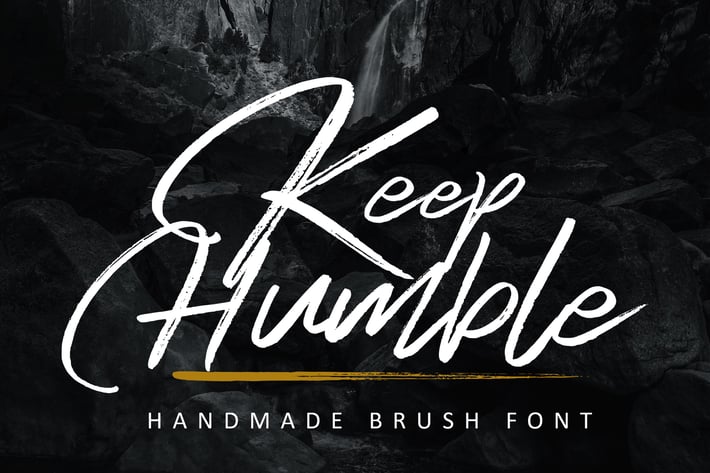
Keep Humble Font
Keep Humble is Natural Dry Brush Font.
This font is perfect for logo, quote, poster, playful lettering, for clothing, or any design projects.